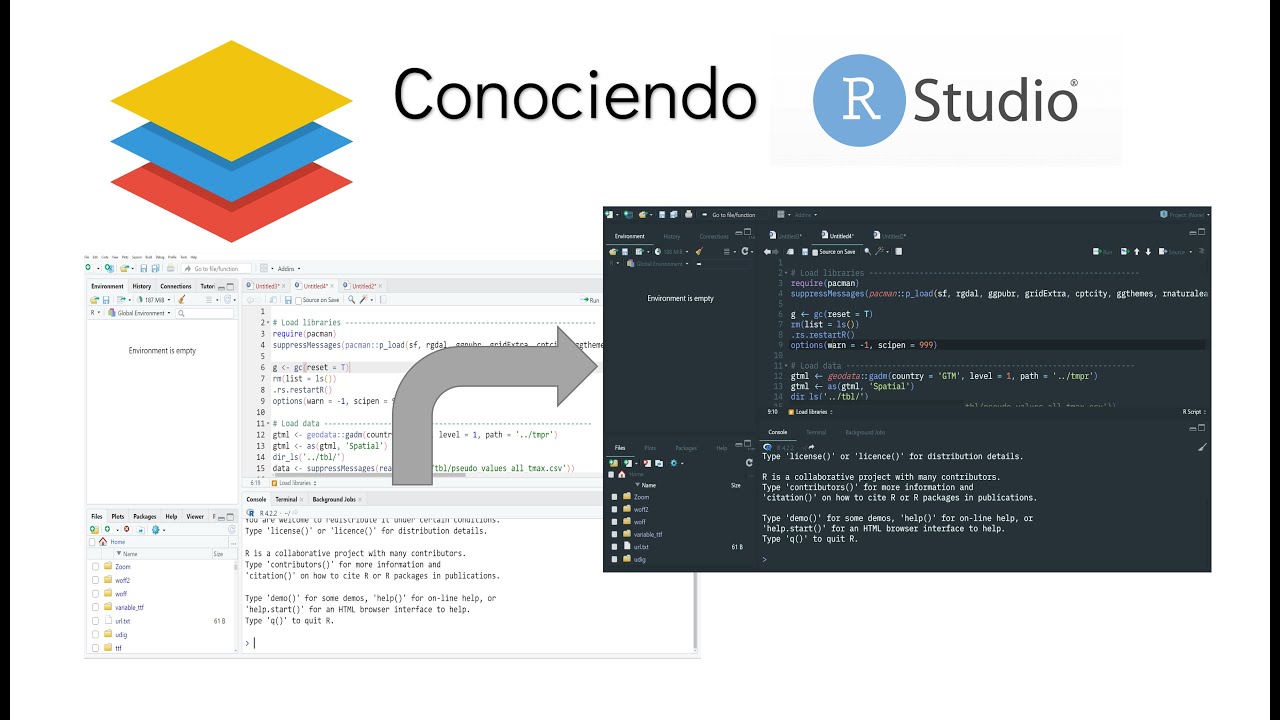
Rstudio Ligatures Font . Ligature fonts are fonts which sometimes map multiple characters to a single glyph, either for readability or just because it. Ligature fonts take sequences of these characters and make a pleasant single ‘token’ that is easy to read and make code. Select fira code as editor font. In older versions of rstudio, check use. Go to tools > global options > appearance; I'm trying out the new support for fonts with code ligatures in 1.1.364, and it looks great! } there are many possible values for. Enhance your coding experience with granular control. Learn how to enable ligatures in rstudio dailies using css and themes. This is just a font rendering feature: It's a small change but really does make the code.
This is just a font rendering feature: Go to tools > global options > appearance; In older versions of rstudio, check use. Ligature fonts are fonts which sometimes map multiple characters to a single glyph, either for readability or just because it. I'm trying out the new support for fonts with code ligatures in 1.1.364, and it looks great! Enhance your coding experience with granular control. It's a small change but really does make the code. } there are many possible values for. Learn how to enable ligatures in rstudio dailies using css and themes. Select fira code as editor font.
Rstudio Ligatures Font Select fira code as editor font. In older versions of rstudio, check use. } there are many possible values for. It's a small change but really does make the code. Ligature fonts take sequences of these characters and make a pleasant single ‘token’ that is easy to read and make code. This is just a font rendering feature: Learn how to enable ligatures in rstudio dailies using css and themes. Ligature fonts are fonts which sometimes map multiple characters to a single glyph, either for readability or just because it. I'm trying out the new support for fonts with code ligatures in 1.1.364, and it looks great! Enhance your coding experience with granular control. Go to tools > global options > appearance;
rstudio How to enable font ligatures in RStudio? Rstudio Ligatures Font Ligature fonts are fonts which sometimes map multiple characters to a single glyph, either for readability or just because it. } there are many possible values for. This is just a font rendering feature: It's a small change but really does make the code. In older versions of rstudio, check use. Learn how to enable ligatures in rstudio dailies using. Rstudio Ligatures Font.
Ligature font doesn't render in Microsoft Edge · Issue 1037 · rstudio Rstudio Ligatures Font Go to tools > global options > appearance; It's a small change but really does make the code. Ligature fonts are fonts which sometimes map multiple characters to a single glyph, either for readability or just because it. Learn how to enable ligatures in rstudio dailies using css and themes. I'm trying out the new support for fonts with code. Rstudio Ligatures Font.
Ligatures in programming fonts Butterick’s Practical Typography Rstudio Ligatures Font I'm trying out the new support for fonts with code ligatures in 1.1.364, and it looks great! Go to tools > global options > appearance; Learn how to enable ligatures in rstudio dailies using css and themes. Ligature fonts take sequences of these characters and make a pleasant single ‘token’ that is easy to read and make code. Ligature fonts. Rstudio Ligatures Font.
Ligature Font BUNDLE Vol. 1 Rstudio Ligatures Font This is just a font rendering feature: In older versions of rstudio, check use. Ligature fonts are fonts which sometimes map multiple characters to a single glyph, either for readability or just because it. It's a small change but really does make the code. Go to tools > global options > appearance; Enhance your coding experience with granular control. Ligature. Rstudio Ligatures Font.
rstudio How do I install Fira Code to RStudio on Windows? Stack Rstudio Ligatures Font In older versions of rstudio, check use. Enhance your coding experience with granular control. I'm trying out the new support for fonts with code ligatures in 1.1.364, and it looks great! Go to tools > global options > appearance; Ligature fonts take sequences of these characters and make a pleasant single ‘token’ that is easy to read and make code.. Rstudio Ligatures Font.
Font Ligatures Text at Heather Ingersoll blog Rstudio Ligatures Font This is just a font rendering feature: It's a small change but really does make the code. Ligature fonts are fonts which sometimes map multiple characters to a single glyph, either for readability or just because it. Ligature fonts take sequences of these characters and make a pleasant single ‘token’ that is easy to read and make code. Go to. Rstudio Ligatures Font.
Some FiraCode ligatures drawn inconsistently between quoted and Rstudio Ligatures Font Select fira code as editor font. Learn how to enable ligatures in rstudio dailies using css and themes. It's a small change but really does make the code. } there are many possible values for. In older versions of rstudio, check use. Ligature fonts take sequences of these characters and make a pleasant single ‘token’ that is easy to read. Rstudio Ligatures Font.